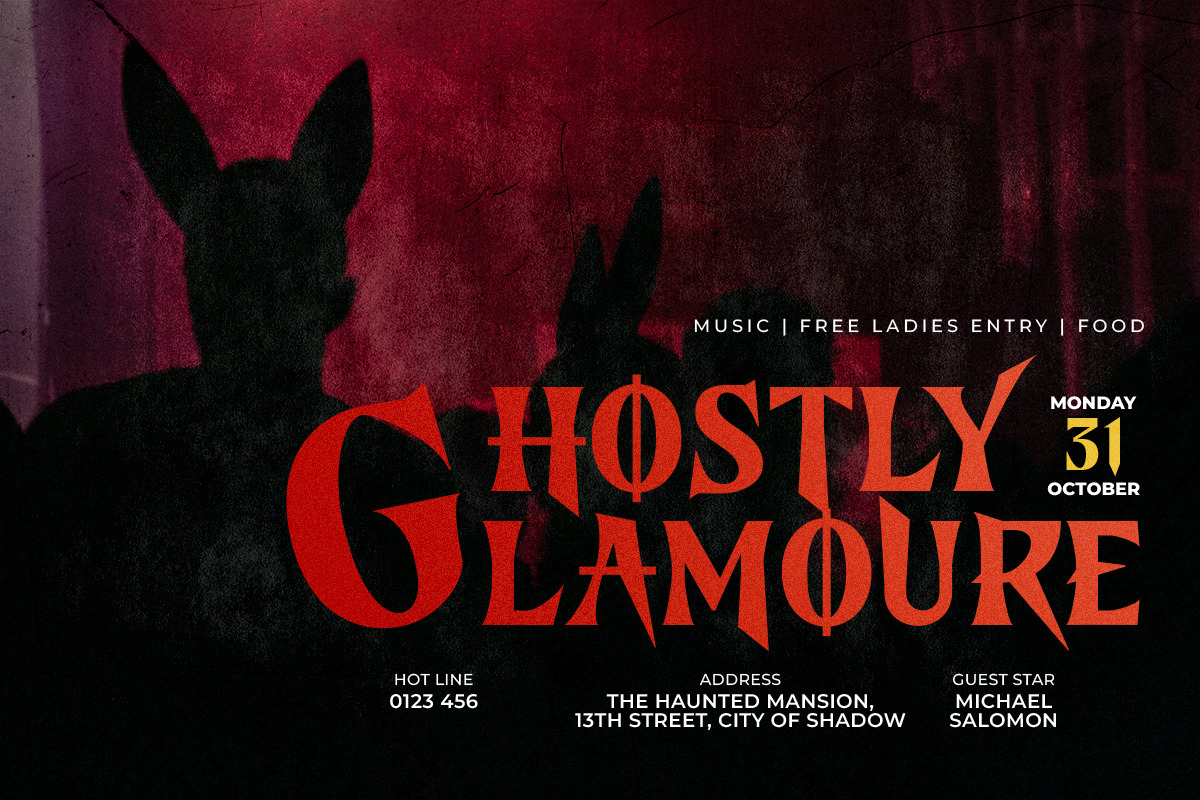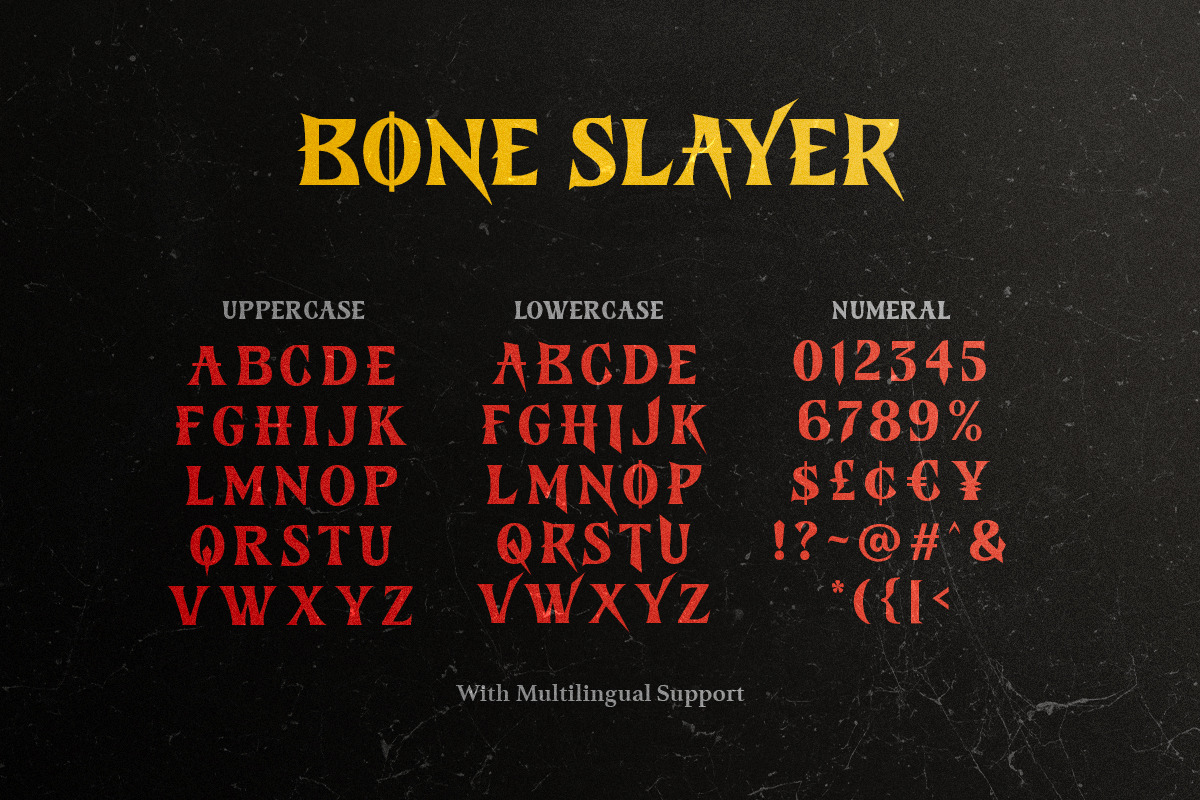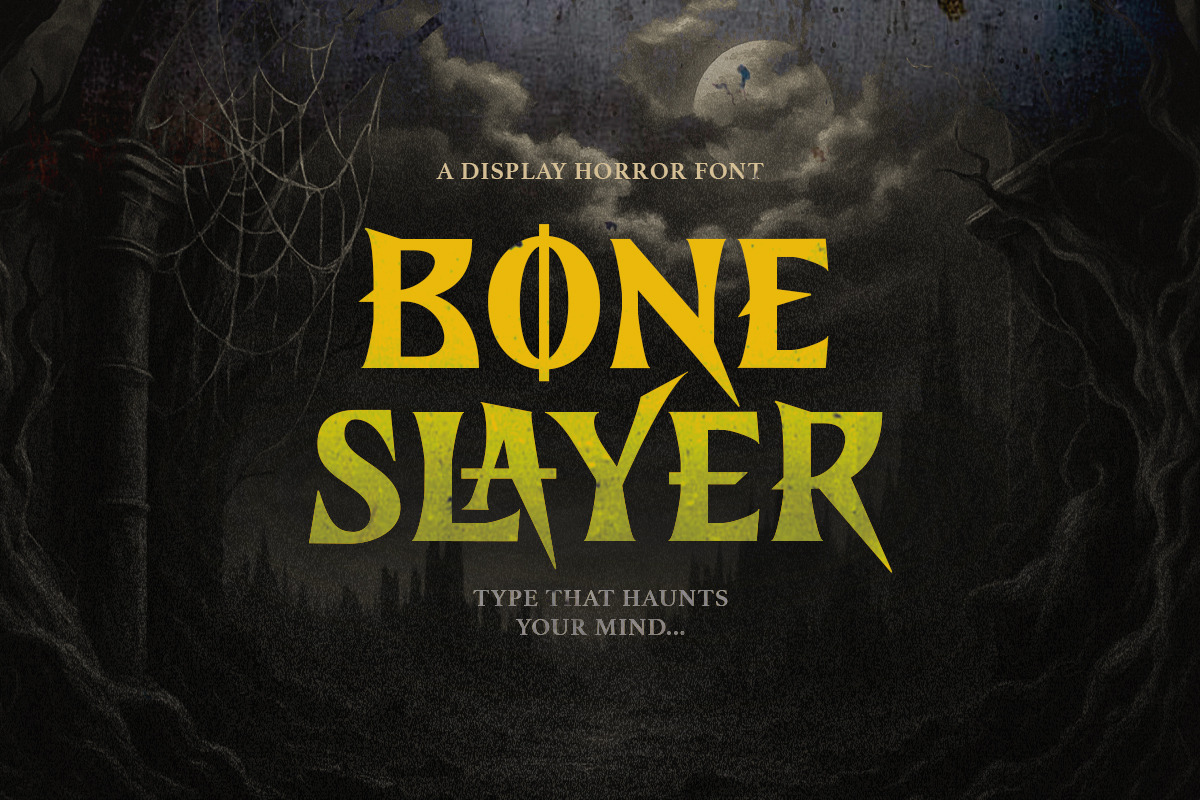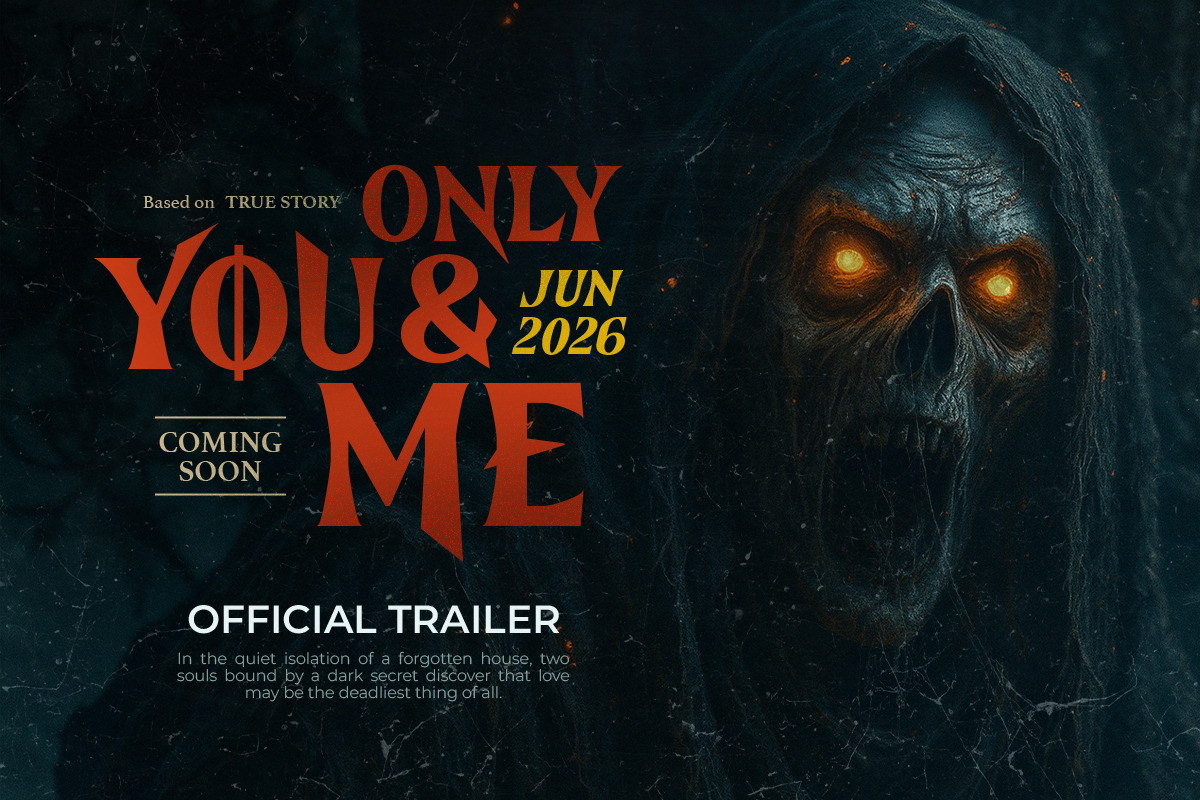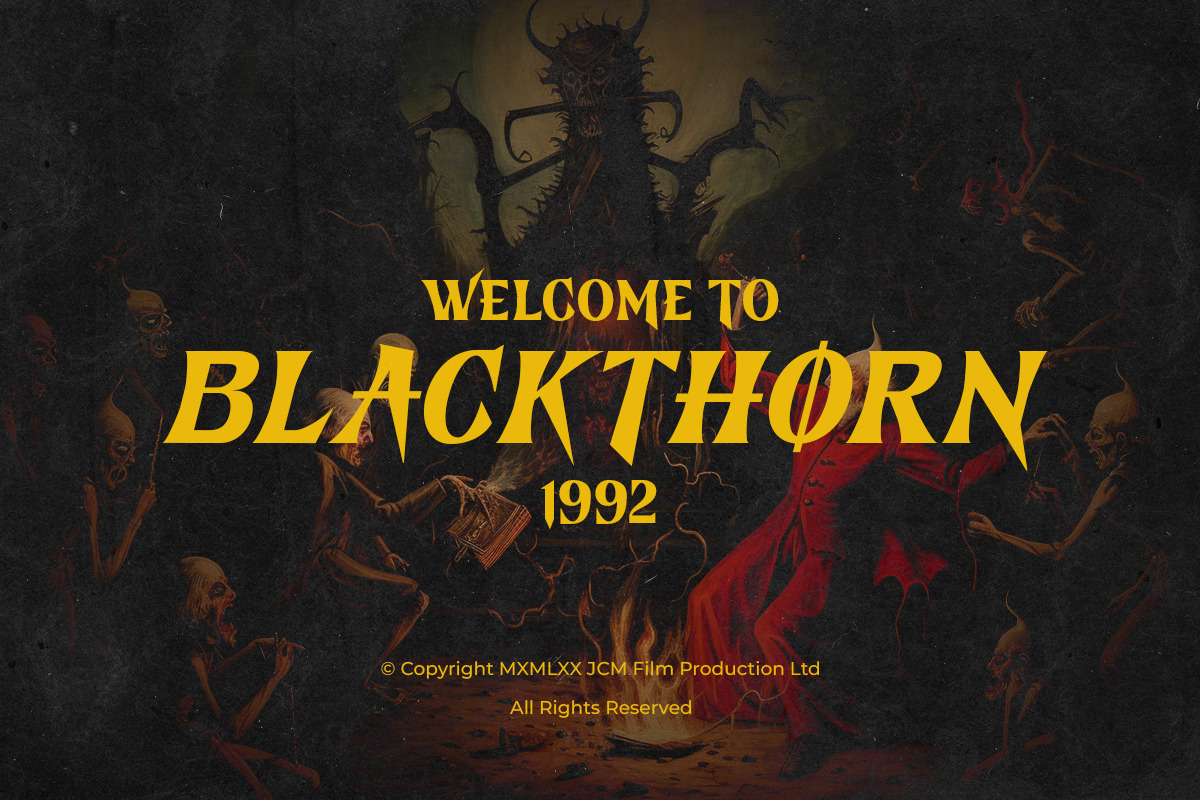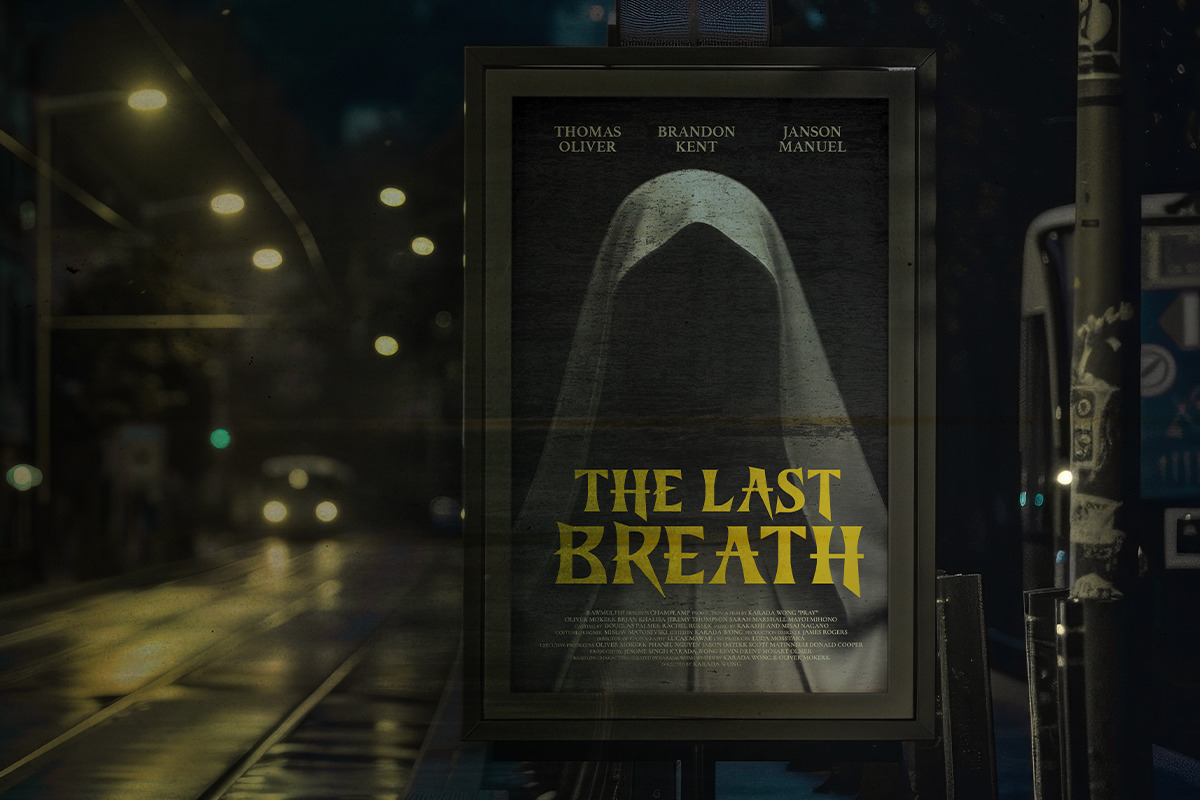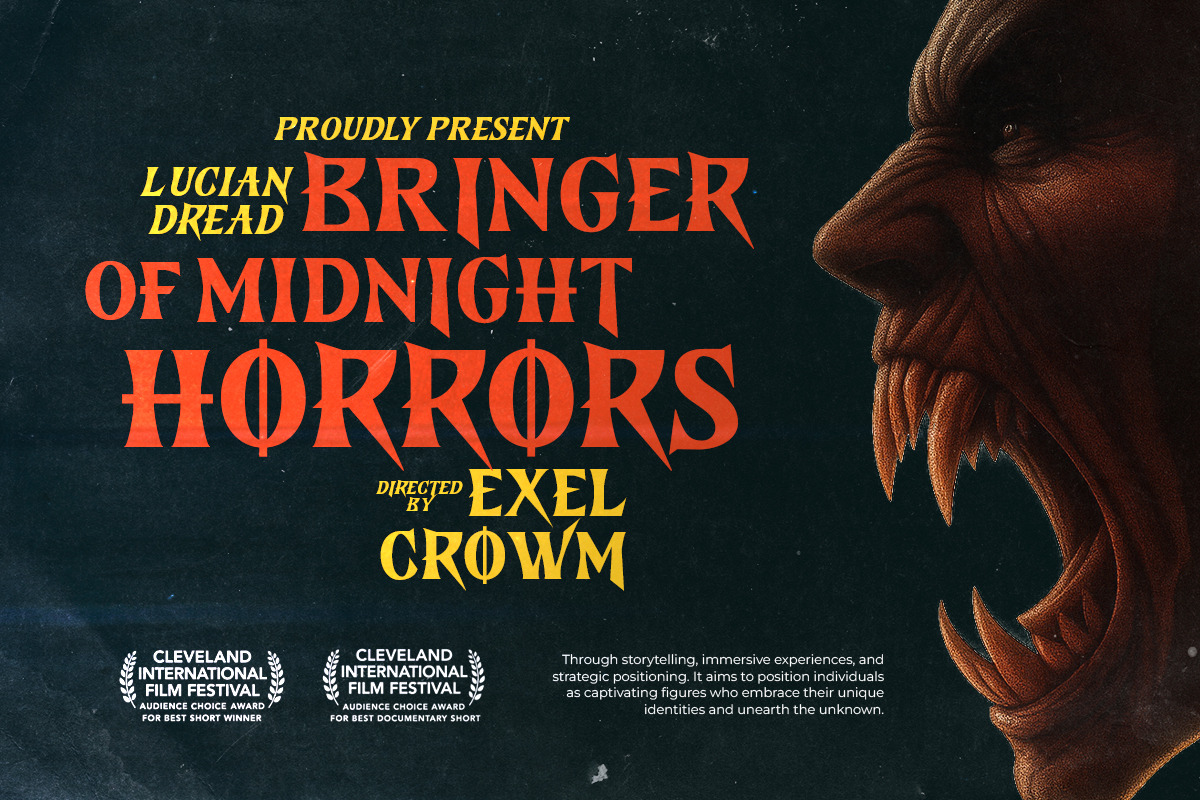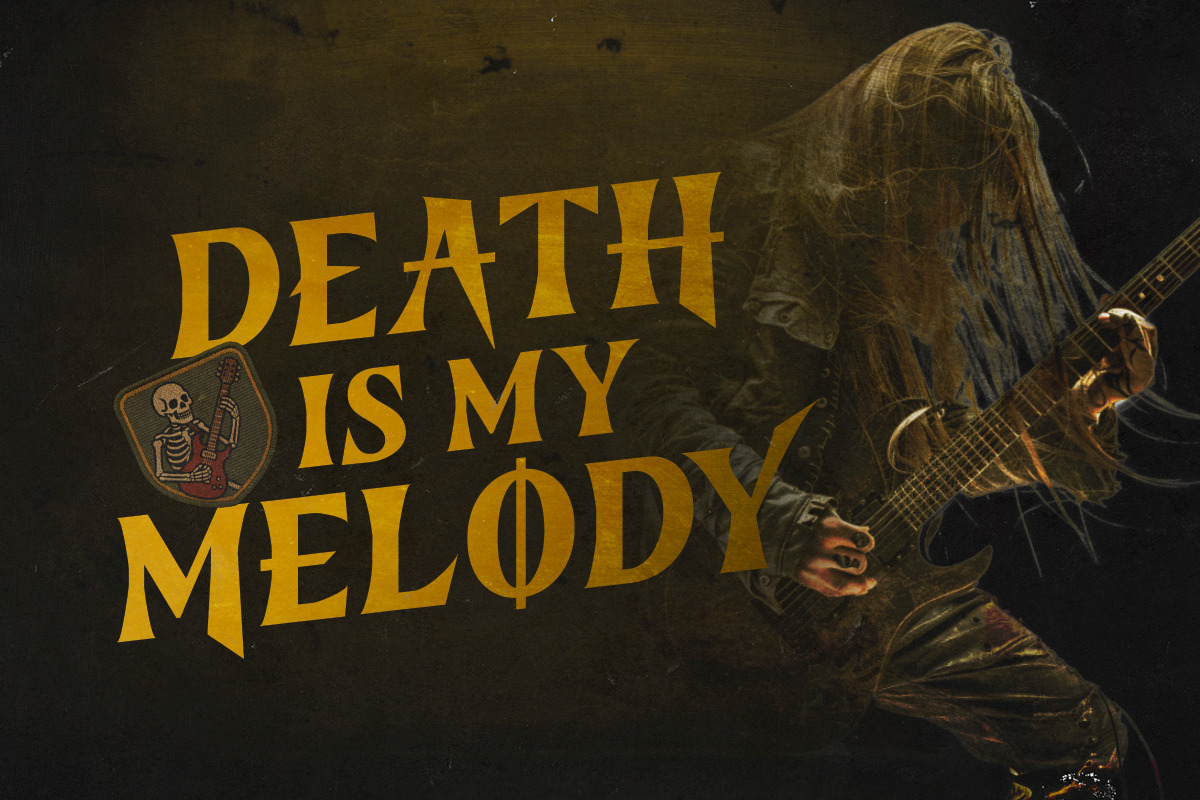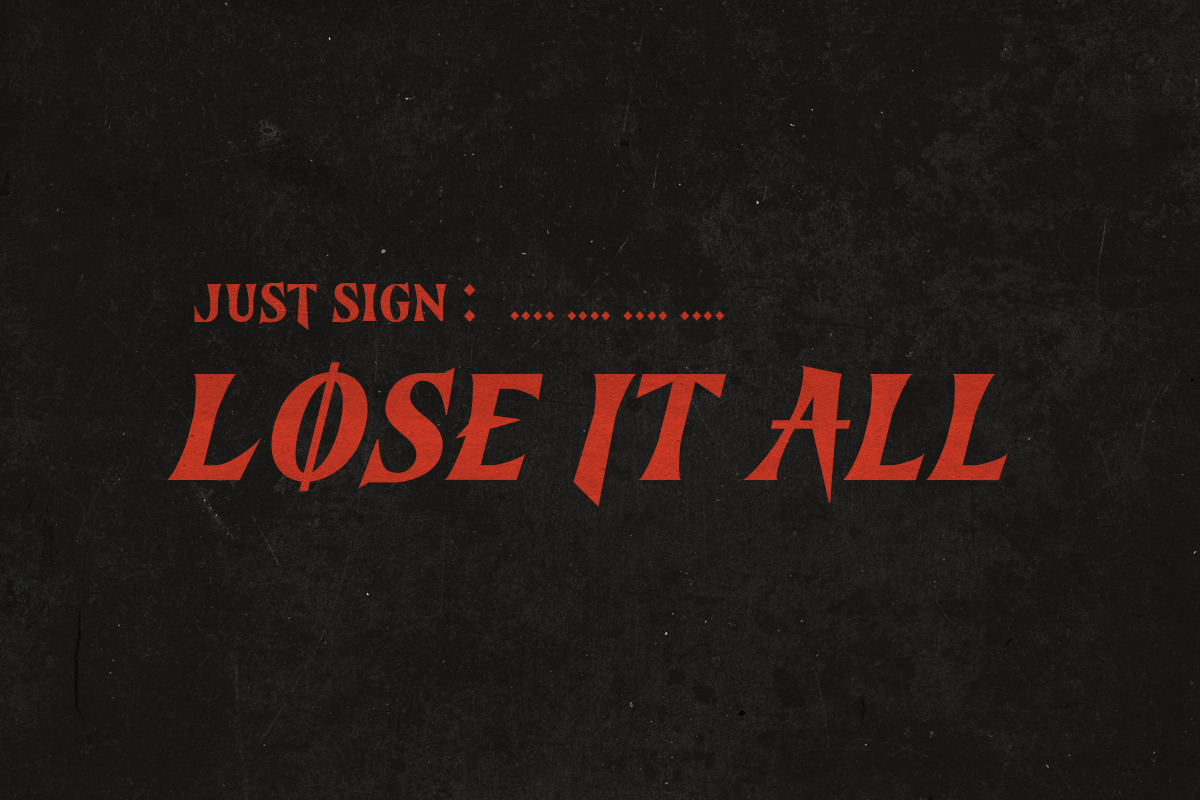
Bone Slayer - Creepy Bold Font
Bone Slayer is a serif based font with horror and creepy vibes. You can use this bold font for any purposes especially for project that needs strong and sharp appearance. Suitable for halloween poster, horror film poster, logotype and book cover. Bone Slayer also support multi language!